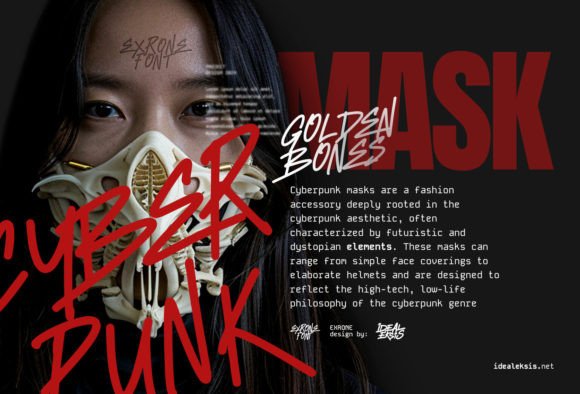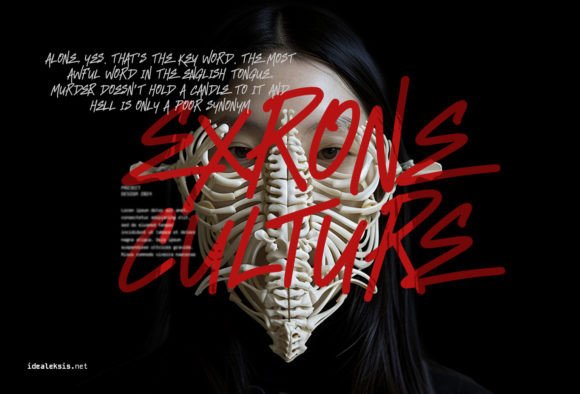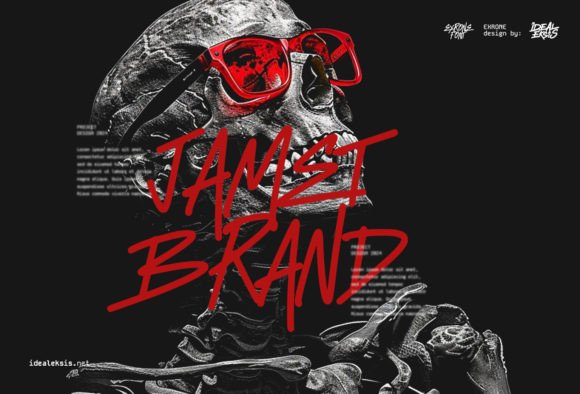
Introducing Exrone Font: Elevate Your Designs with Sophistication
Are you tired of using the same old fonts in your designs? Look no further! Our Exrone Font collection, also known as “ALL CAPS,” is here to revolutionize the way you create. This comprehensive font collection is designed to provide you with a sophisticated and versatile typeface that can elevate your designs to the next level.
What Sets Exrone Font Apart
PUA Encoded Characters for Easy Accessibility
Multilingual Support for Diverse Design Needs
In today’s digital age, design needs are diverse, and language barriers can often get in the way. That’s why our Exrone Font collection offers extensive multilingual support. Whether you’re designing for a global audience or simply want to create something special, this font has got you covered.
Why Choose Exrone Font?
So, why choose Exrone Font over other fonts? Here are just a few reasons:
• Sophisticated Design: Our font is designed to provide a sophisticated and elegant look to your designs.
• Versatility: Exrone Font is compatible with both PC and Mac platforms and works well in popular design software.
• PUA Encoded Characters: The font is enriched with PUA Encoded Characters, making it fully accessible without extra design software.
• Multilingual Support: Our font offers extensive multilingual support, making it perfect for diverse design needs.
In conclusion, Exrone Font is a game-changer for designers and craftspersons looking to elevate their designs. With its sophisticated design, versatility, easy installation, PUA Encoded Characters, and multilingual support, this font collection has everything you need to create stunning designs. Whether you’re a professional designer or simply a DIY enthusiast, Exrone Font is the perfect choice for anyone looking to add a touch of sophistication to their work.